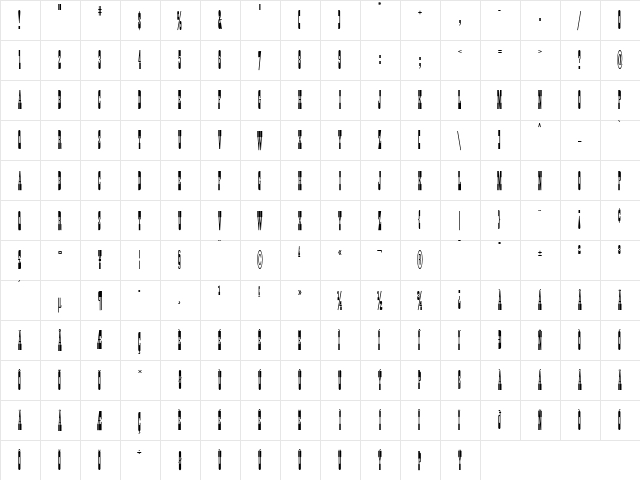
WainwrightICG Medium
Design Context for WainwrightICG Typeface
WainwrightICG offers clean, dependable letterforms without strong stylistic allegiance, making it a practical choice for designers who need flexibility.